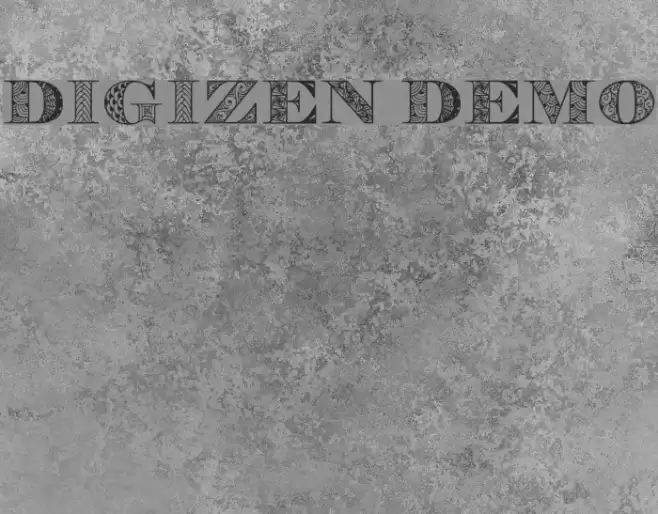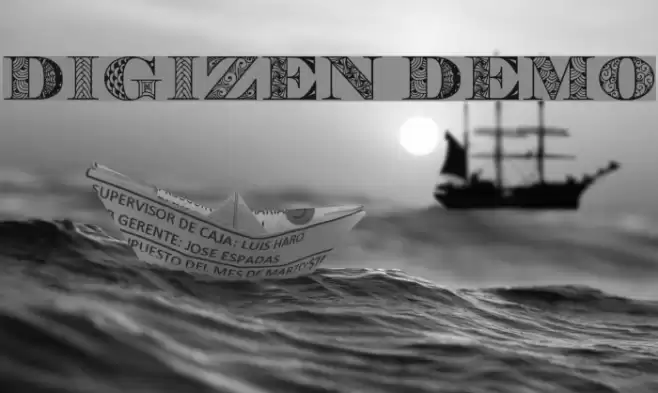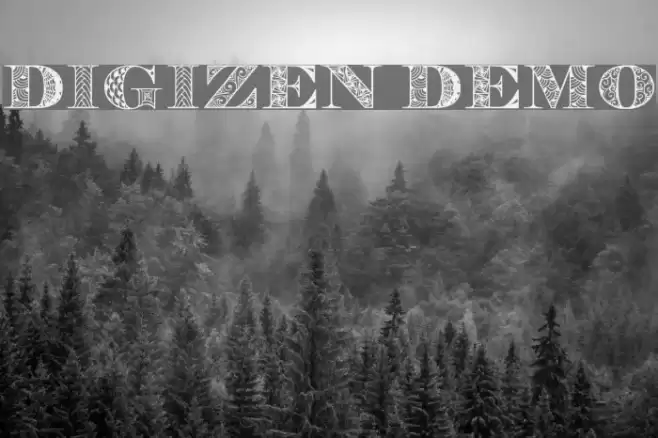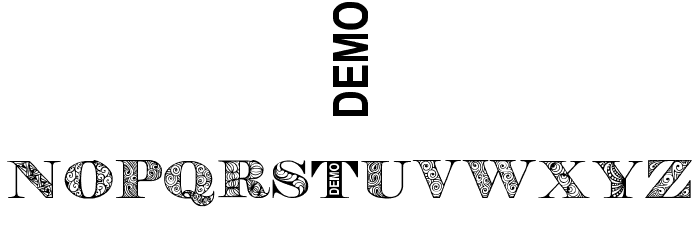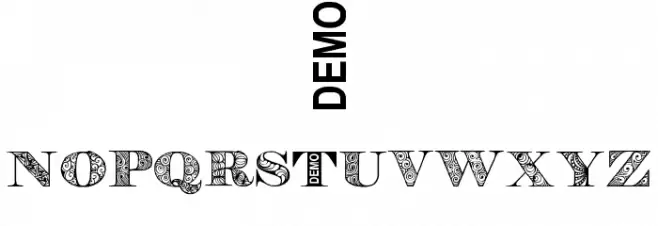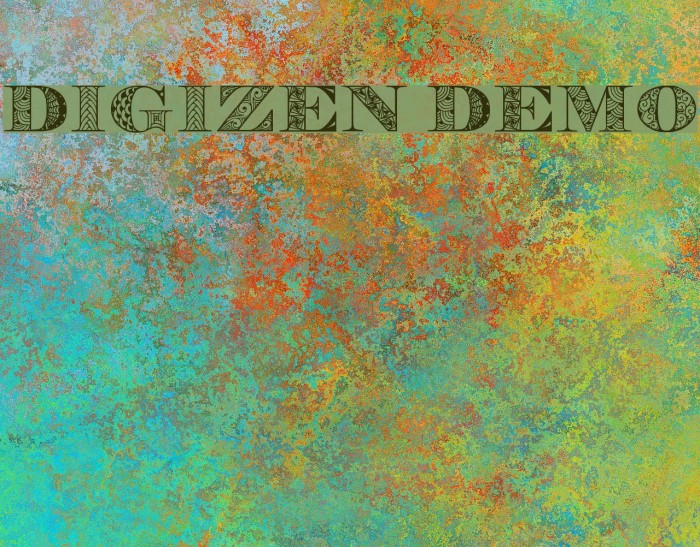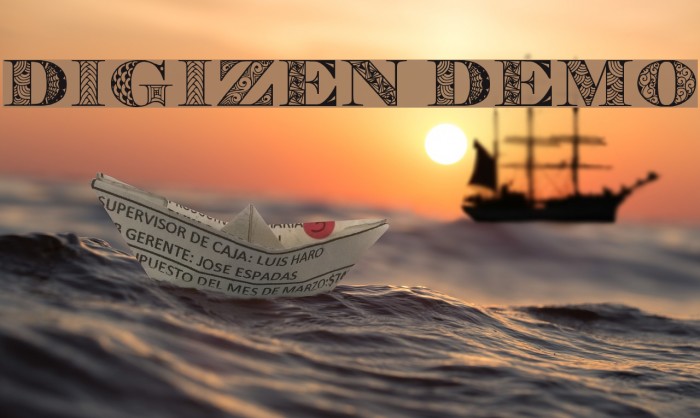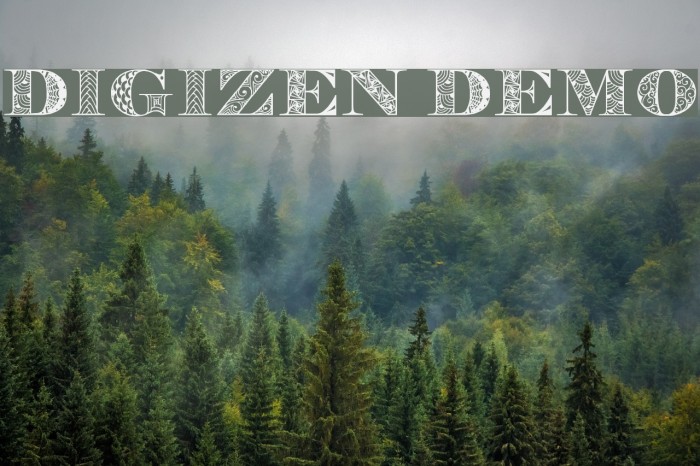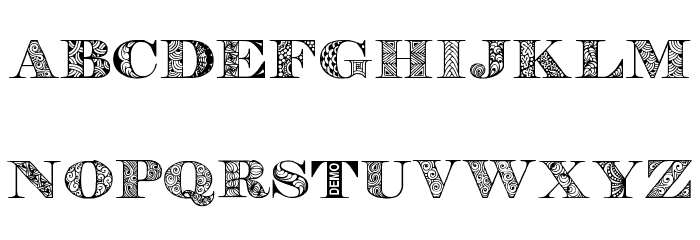
Digizen Demo Font
Digizen Demo Description
This font features an intricate and decorative style with elaborate patterns filling each letter. The uppercase letters are bold and striking, with a high level of detail that makes them stand out. The design includes swirling and geometric motifs that give it a unique and artistic appearance. The overall look is reminiscent of vintage or ornamental typography, making it suitable for projects that require a touch of elegance and sophistication. The font maintains a consistent width and weight across all characters, ensuring uniformity in its presentation.
An intricate and decorative font with bold, detailed uppercase letters from Curly fonts.
- Proposed Projects: Ideal for use in branding, invitations, posters, and any design requiring a decorative and artistic touch.
- Overall Style: Vintage